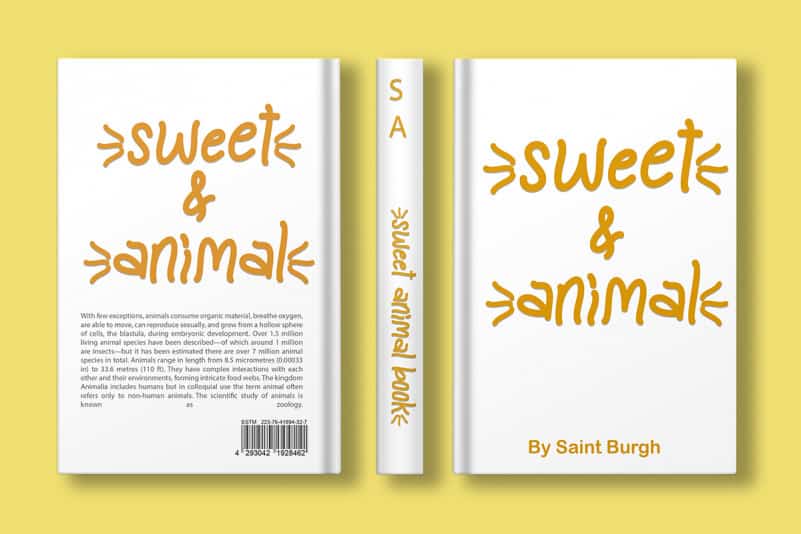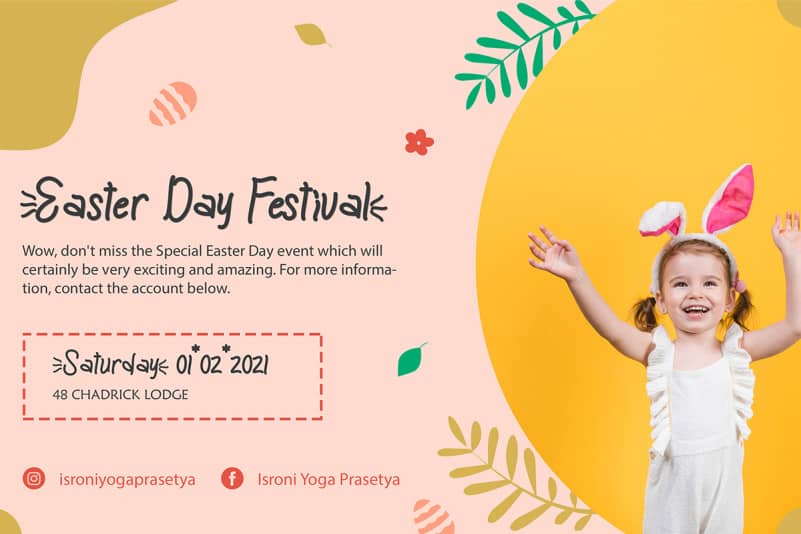
Yellow Easter Display Font
Yellow Easter Display Font is a cute and unique font. This font is very easy to use by customers because it has been specially designed. This font is completed with cute and attractive letter decorations. This font is perfect for celebrating your Easter day. In addition, this font is also very suitable for product promotion, logos, branding, banners, posters, prints, and others.